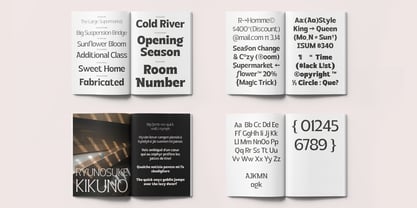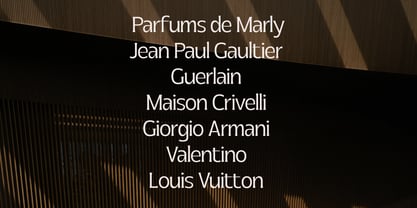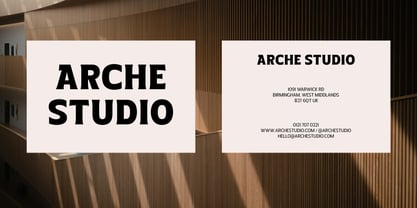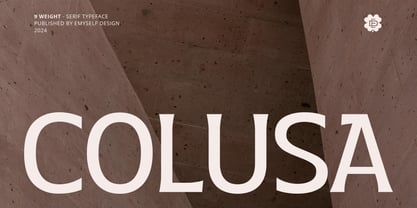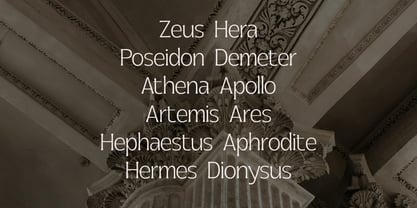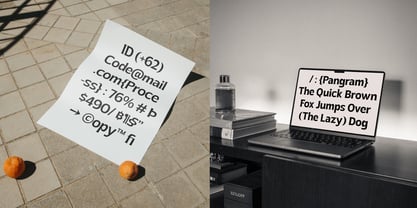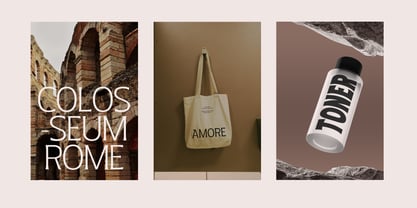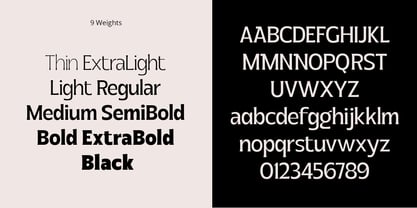
ED Colusa
by Emyself Design
The ED Colusa Font Family was designed by Eko Setiawan and published by Emyself Design. ED Colusa contains 9 styles and family package options. More about this family
ED Colusa is a modern serif font that combines minimalist beauty with a touch of classic elegance. With its clean and proportional design, this font gives a timeless impression. This font has 9 levels of thickness from thin to black allowing you to adjust the font to various types of designs, from light and soft to bold and authoritative.
In addition, this font is also equipped with OpenType features such as Stylistic set, ligature, and multi-language support. This font is perfect for your creative projects such as Logotype, printed quotes, invitations, cards, headers, letterheads, Apparel, Web design, magazines, books, etc.
Designers: Eko Setiawan
Foundry: Emyself Design
Emyself Design is an independent type casting, founded in 2018 by Eko Setiawan, a type and graphic designer based in Indonesia. Emyself Design makes fonts easy to use for design needs while maintaining the aesthetic side of the letters. Apart from creating fonts for sale in the market, I also cater to custom typography and illustrations designed with a creative process and some research.